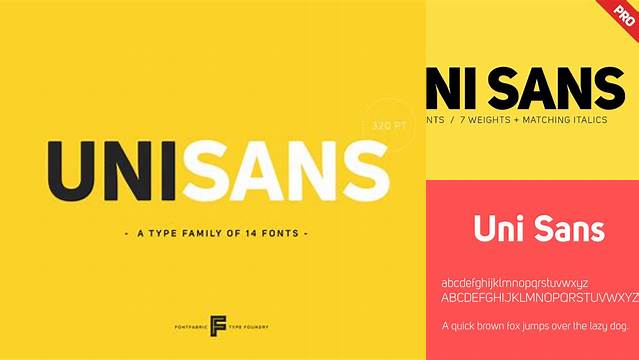
Hey there, design enthusiasts! Are you on the hunt for a versatile and stylish typeface to elevate your projects? Look no further! Uni Sans Font Family is a fantastic choice, and the best part? You can get it as a free download! This article is your ultimate guide to everything you need to know about Uni Sans, from its distinctive characteristics to how to snag it for free. We'll cover the font's history, its various uses, and of course, how to download it safely and legally. So, buckle up, and let's dive into the world of Uni Sans!
Uni Sans Font: A Comprehensive Overview
Uni Sans isn't just another font; it's a statement. This sans-serif typeface, created by Svetoslav Simov, boasts a clean, modern aesthetic that's perfect for a wide range of design applications. It's known for its strong, geometric letterforms and its ability to convey both professionalism and personality. The Uni Sans family includes various weights and styles, offering designers a ton of flexibility. Whether you're working on a website, a print project, or a branding campaign, Uni Sans can bring your vision to life. Its legibility makes it suitable for everything from headlines to body text, while its distinct character ensures your designs stand out. The font’s popularity stems from its versatility and its ability to adapt to different design needs. It has become a go-to choice for designers worldwide, thanks to its clean lines and modern feel. The Uni Sans font is a testament to how good design can be simple yet effective. It is a typeface that resonates with a broad audience, making it a valuable asset for any designer looking to create a lasting impression. The different weights allow for a harmonious balance across various design elements. The bold weights add impact, while the lighter weights maintain readability, which makes it an excellent choice for projects that require a sophisticated touch.
The History and Design of Uni Sans
Okay guys, let's talk about where Uni Sans came from. Svetoslav Simov, the genius behind this font, designed it with a clear vision in mind: to create a typeface that is both functional and aesthetically pleasing. Simov, a renowned typeface designer, crafted Uni Sans with careful attention to detail, ensuring each letterform contributes to the overall harmony of the font. The design process involved meticulous refinement, balancing geometric precision with humanistic touches. The goal was to create a font that felt both contemporary and timeless, something that could remain relevant in the fast-paced world of design. The font's design reflects its purpose, offering clarity and readability while still providing a modern look. The initial design was so well-received that it quickly gained traction among designers and design enthusiasts. The design has not only stood the test of time but has also found its way into various mediums, ranging from web design to print media. The design also reflects the designer's understanding of the importance of functionality and aesthetics. This understanding is what makes the Uni Sans font so adaptable to a variety of design styles. This dedication to design excellence has turned Uni Sans into a favorite in the design community.
Uni Sans Font Family: Variations and Styles
When you download the Uni Sans font family, you're not just getting one font; you're getting a whole toolkit! It comes in various weights, including light, regular, bold, and extra bold, and many more. Each weight offers a slightly different personality, allowing you to fine-tune your design. Whether you need a delicate touch or a commanding presence, Uni Sans has you covered. These variations aren't just about aesthetics; they're about functionality. For instance, you might use the light weight for body text to maintain readability, while the bold weight is perfect for headlines to capture attention. This family approach ensures versatility and consistency across your design projects. The different styles, such as italic and condensed, further extend the font's capabilities. The condensed styles are very useful for space-saving in layouts, and the italic adds a touch of elegance and flair. So, the next time you are deciding which font to use, remember Uni Sans, and its flexibility.
Different Weights of Uni Sans
Now, let's break down the weights. The light weight is delicate and airy, ideal for subtle emphasis or supporting text. The regular weight is the workhorse, perfect for body text and general use. Bold and extra bold are your attention-grabbers, excellent for headlines, titles, and any place you want to make a strong statement. Then there are also italic versions for each weight, providing a dynamic look. Each weight is designed to work harmoniously with the others, ensuring a consistent look throughout your design. This systematic approach makes the Uni Sans family a powerful tool for any designer. Experimenting with different weights is key to understanding how they can enhance your designs. Consider the mood you're trying to create and choose the weight that best aligns with that emotion. The goal is to leverage the different weights of the font to create a balanced and visually appealing design. You should try them all to fully understand the potential that this font has.
Why Choose Uni Sans for Your Projects?
So, why should Uni Sans be your go-to font? Simple: it's versatile, readable, and visually appealing. It's suitable for a vast array of projects, from websites and apps to posters and brochures. Its clean, modern design ensures your work looks professional and up-to-date. The font’s geometric shapes and clean lines make it incredibly legible, even at smaller sizes. This makes it an ideal choice for body text, ensuring your content is easy to read. The variety of weights allows you to create visual hierarchy, guiding the viewer's eye and emphasizing important information. The versatility also allows for a wide range of uses and design styles, making it a go-to choice for designers who are always seeking the best options. It works equally well in both digital and print environments. The visual appeal of Uni Sans is undeniable, adding a touch of sophistication and modernity to any project. It's this combination of versatility, readability, and visual appeal that makes Uni Sans a top choice.
Uni Sans Font in Web Design
In the world of web design, Uni Sans shines. Its clean lines and excellent readability make it a perfect choice for websites. Whether it's used for headlines, body text, or navigation menus, it provides a professional and modern look. The various weights allow for the creation of visual hierarchy, guiding users through your site's content. The font's versatility makes it adaptable to different design styles, from minimalist to bold and colorful. Uni Sans also performs well on different screen sizes, maintaining its clarity and readability across all devices. This is crucial for a positive user experience. You can use the font for your website, your personal blog, or even a corporate website. By using this font, you make sure your website is easy to read and looks modern. You can use it for headings, body text, or other elements. It makes your content more readable and attractive, improving user engagement. Uni Sans will elevate your website design.
Uni Sans for Print Design
Print designers, listen up! Uni Sans is also a fantastic choice for your print projects. Its clean, modern look translates beautifully to paper, making it ideal for brochures, posters, and other printed materials. The font's legibility ensures that your message is clear and easy to read, even in print. The different weights allow for creative uses, such as making headlines stand out while still maintaining readability. It's a versatile option for various print designs. Whether you're working on a magazine layout, a business card, or a product packaging design, Uni Sans can help you create a polished and professional look. Its geometric shapes and clean lines work very well in print, making it an excellent choice for any designer. The high-quality print results make Uni Sans a great choice for your print design.
Let’s recap what we've learned. Uni Sans is a versatile sans-serif font designed by Svetoslav Simov, known for its clean and modern aesthetic. The Uni Sans family includes various weights and styles, allowing for a wide range of design applications. The font is suitable for web design and print materials. It’s important to download from trusted sources and respect the licensing terms. Different weights help emphasize your message, and the style makes it an excellent option for a diverse range of designs. Following the tips for effective usage and best practices ensures your designs stand out. Remember to experiment and have fun. The different features can help with a variety of projects.